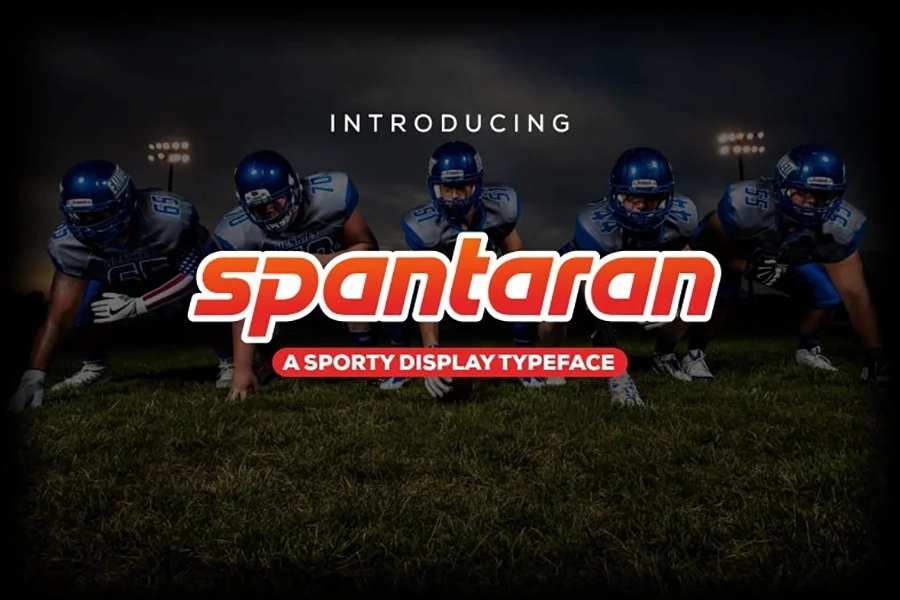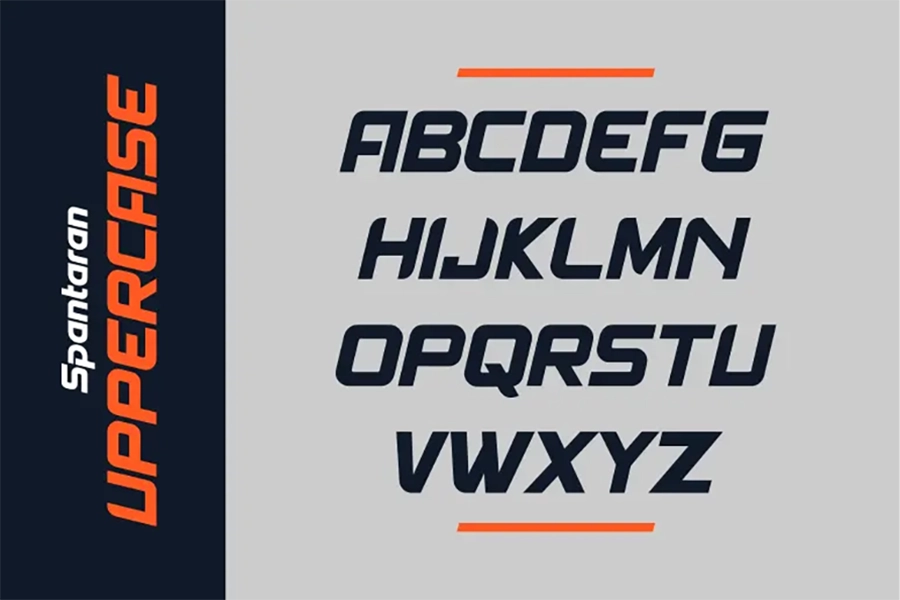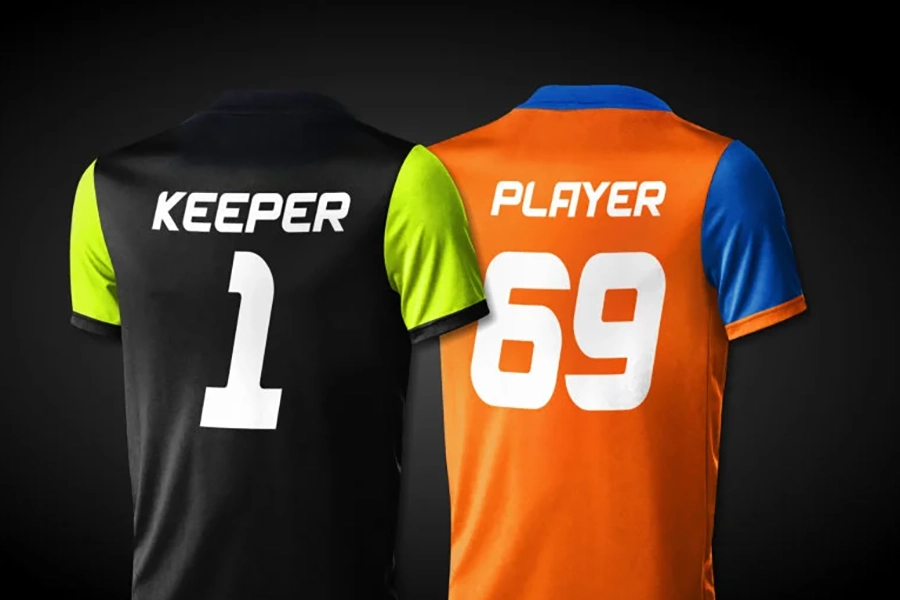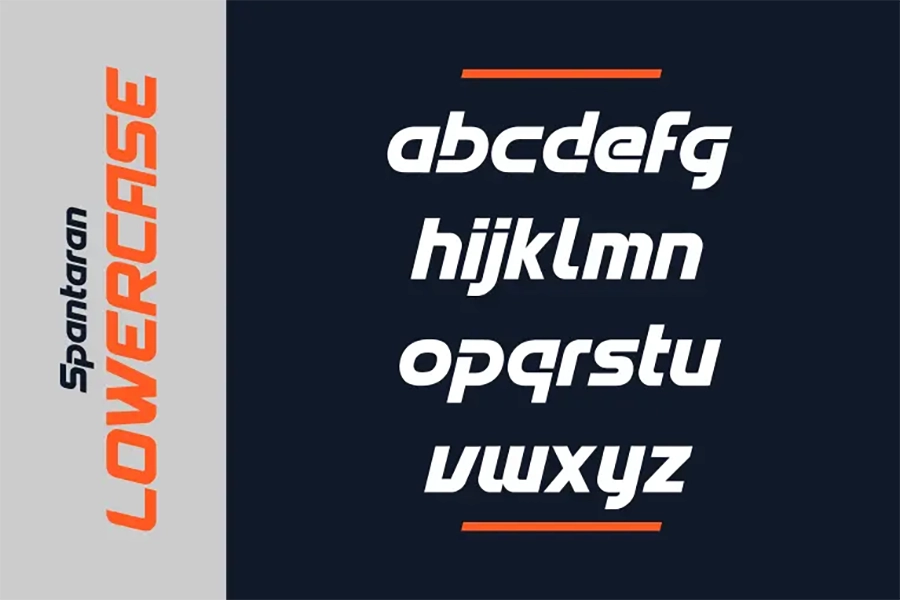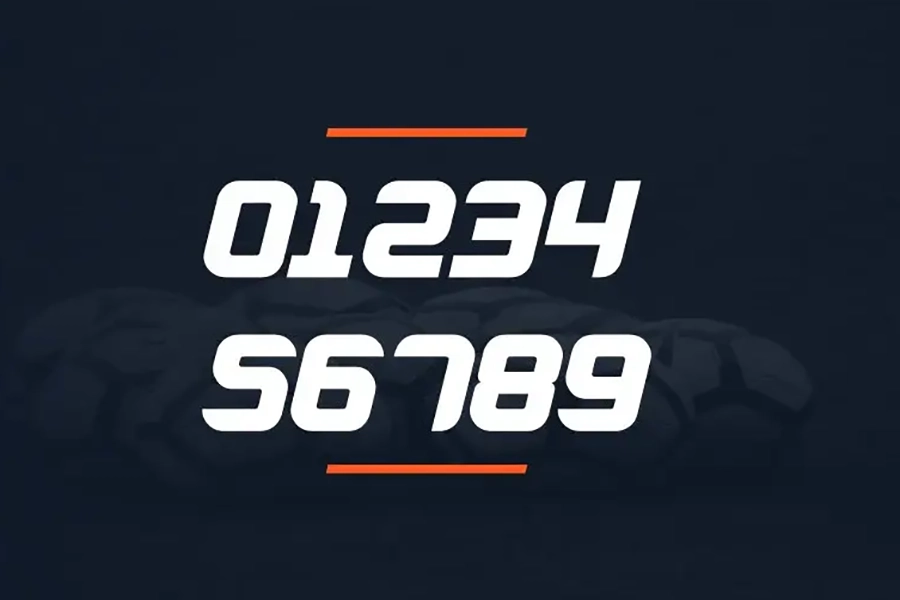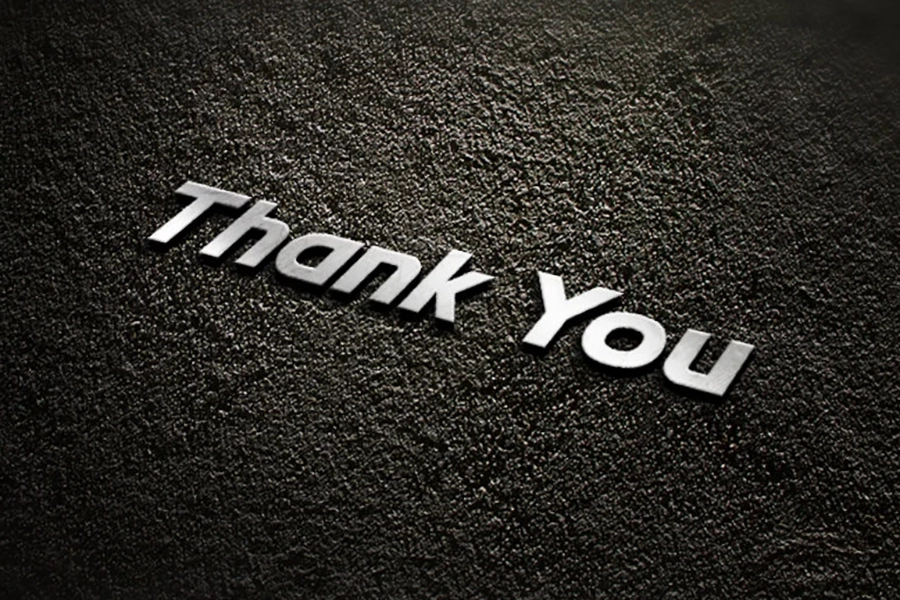
Spantaran Regular
Spantaran is a sporty display typeface which is very suitable for logos, titles, player names on the jersey, and more.  It was made with italic & bold characters which gives it a strong feel.